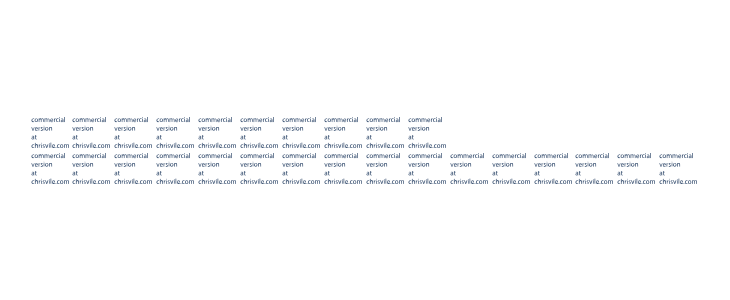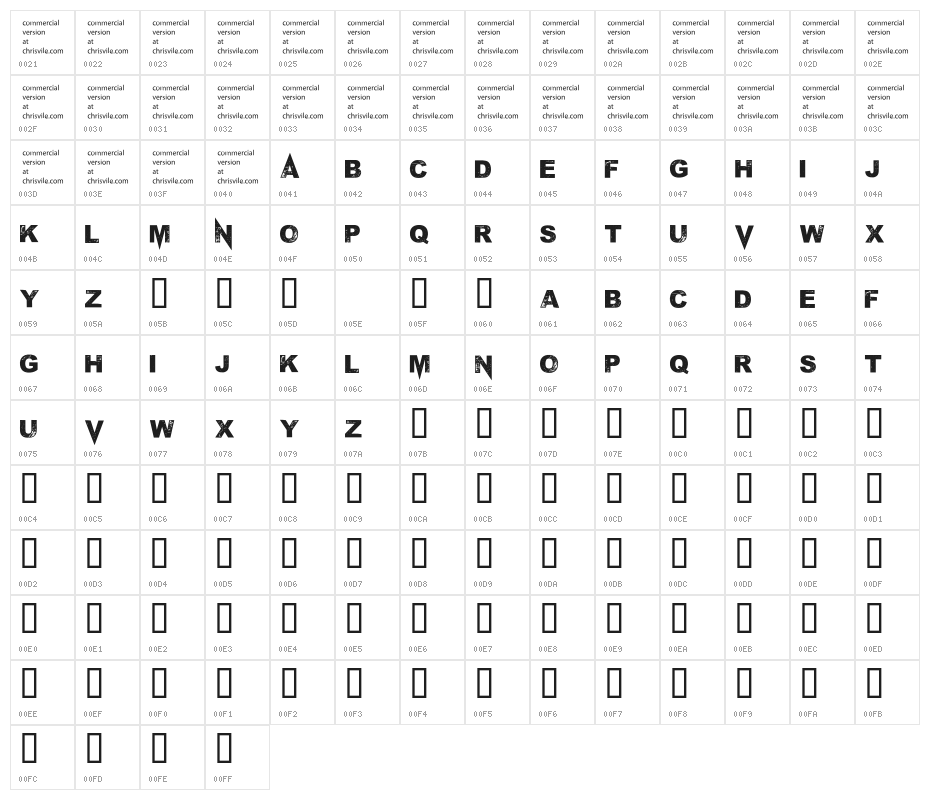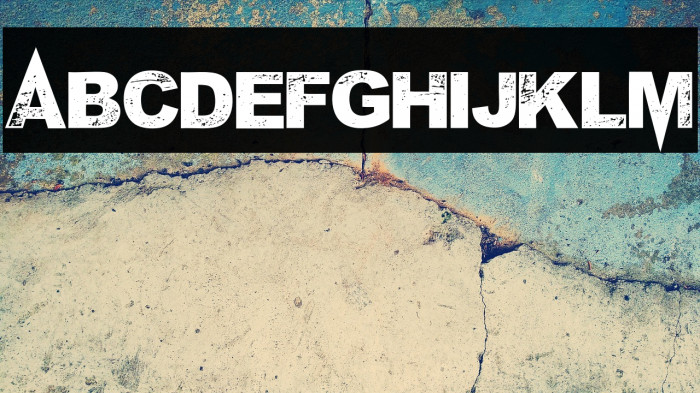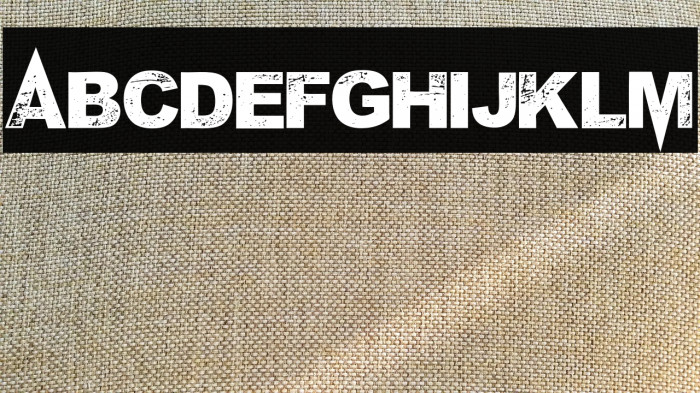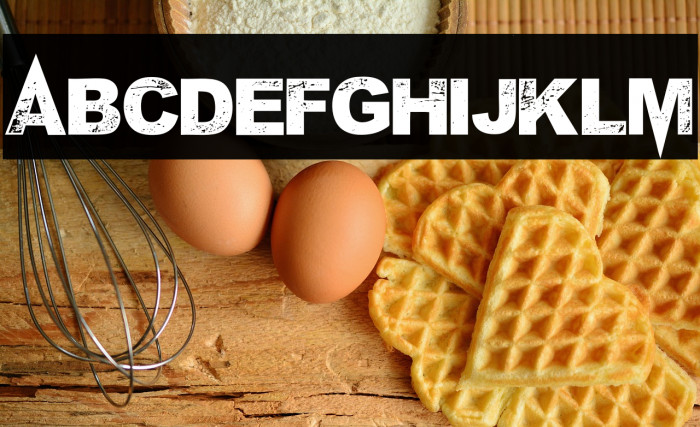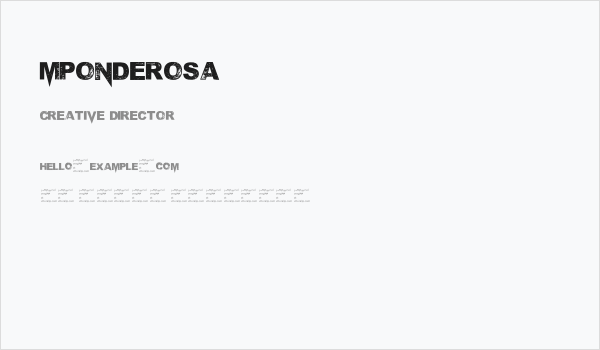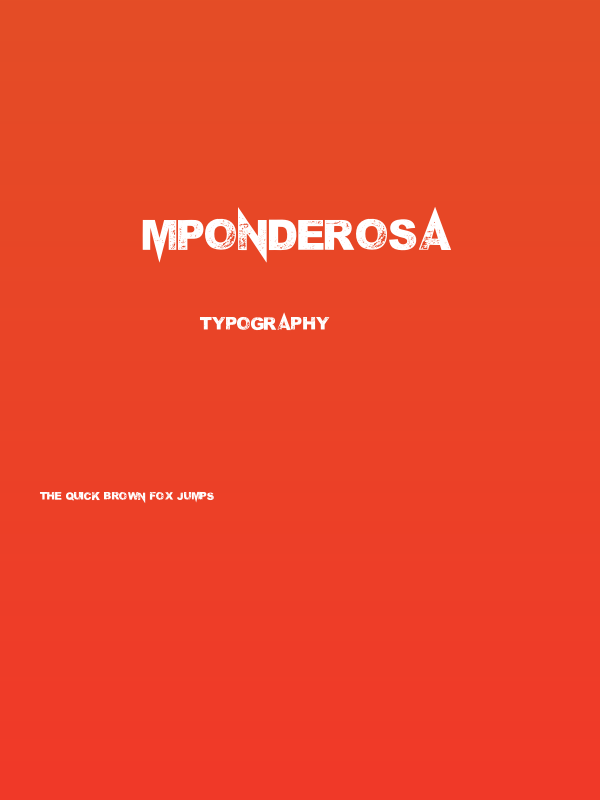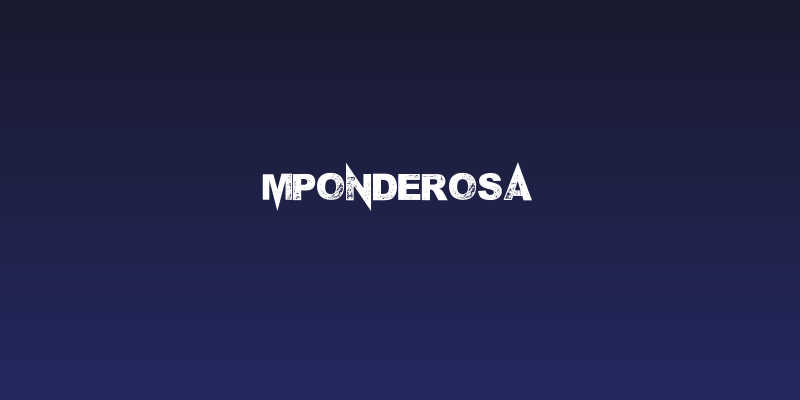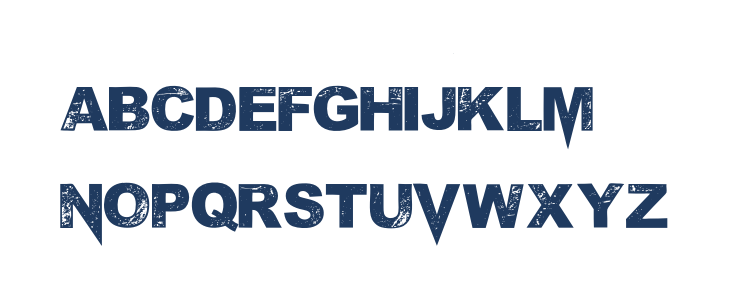
MPonderosa Font
MPonderosa Description
This font features a bold and distressed style, with a rugged texture that gives it a vintage and worn appearance. The uppercase letters are prominently displayed with a strong presence, making it ideal for impactful designs. The texture within each character adds a unique, weathered look, reminiscent of old posters or signage. The font maintains a consistent weight throughout, ensuring readability while still offering a decorative flair. Its boldness and texture make it suitable for projects that require a strong visual impact.
| Proposed Projects | Ideal for vintage posters, branding, logos, and any design requiring a bold, rustic look. |